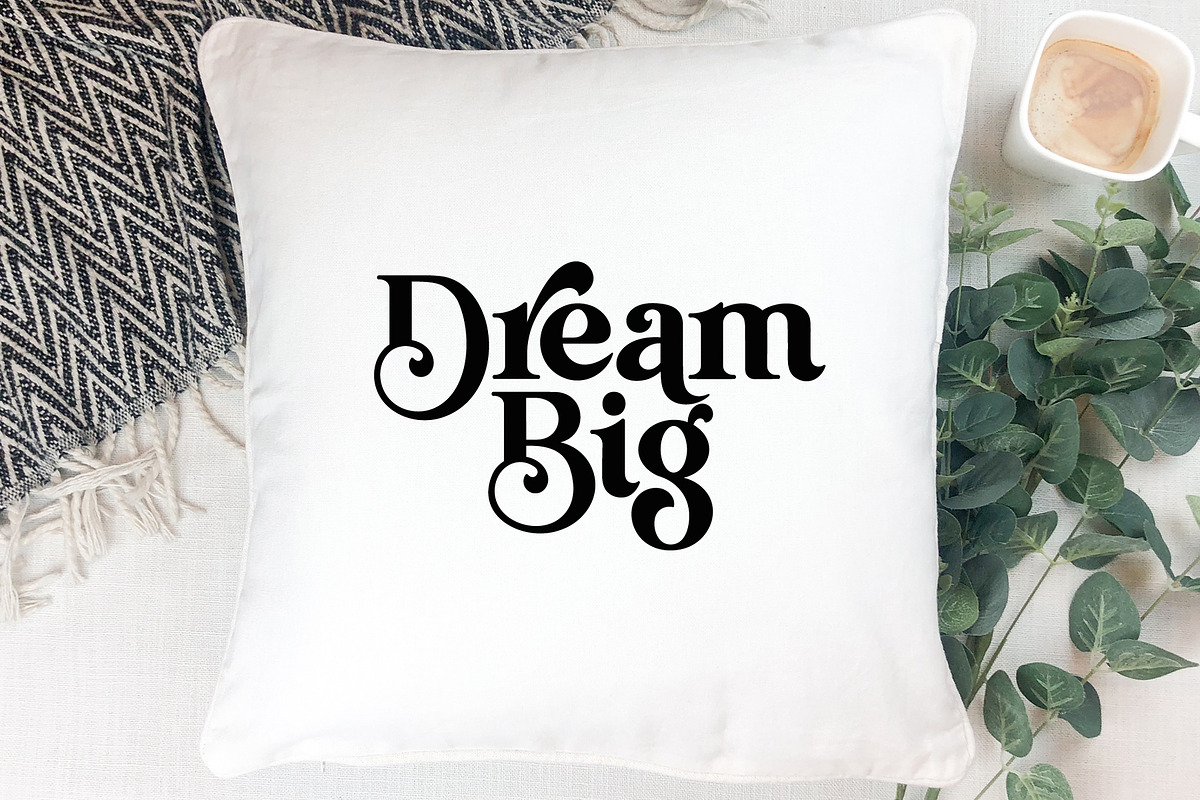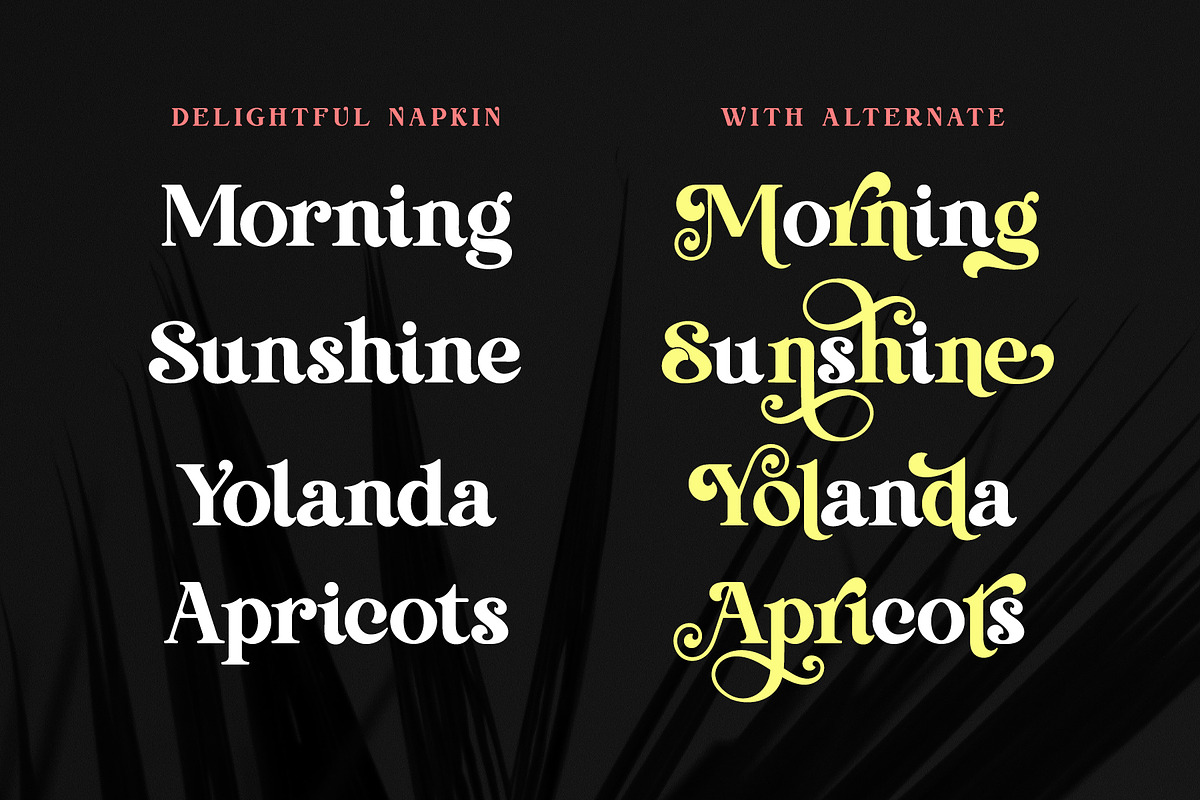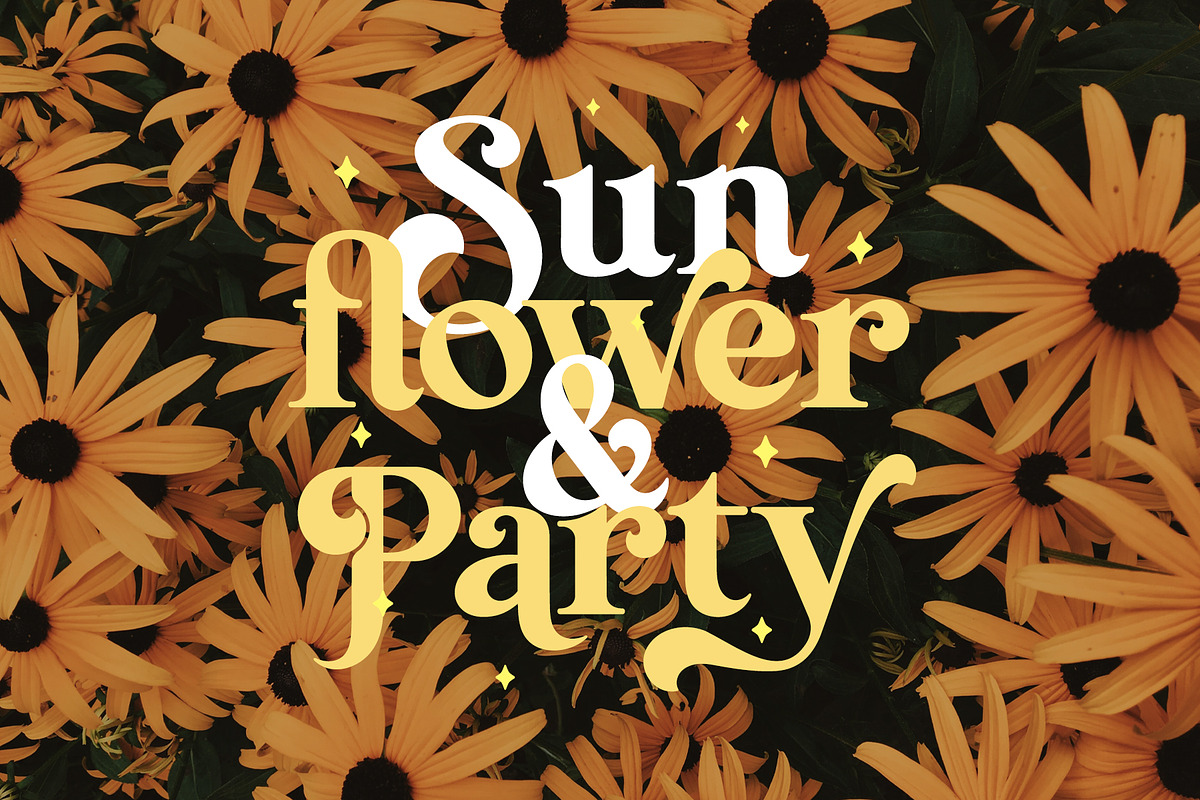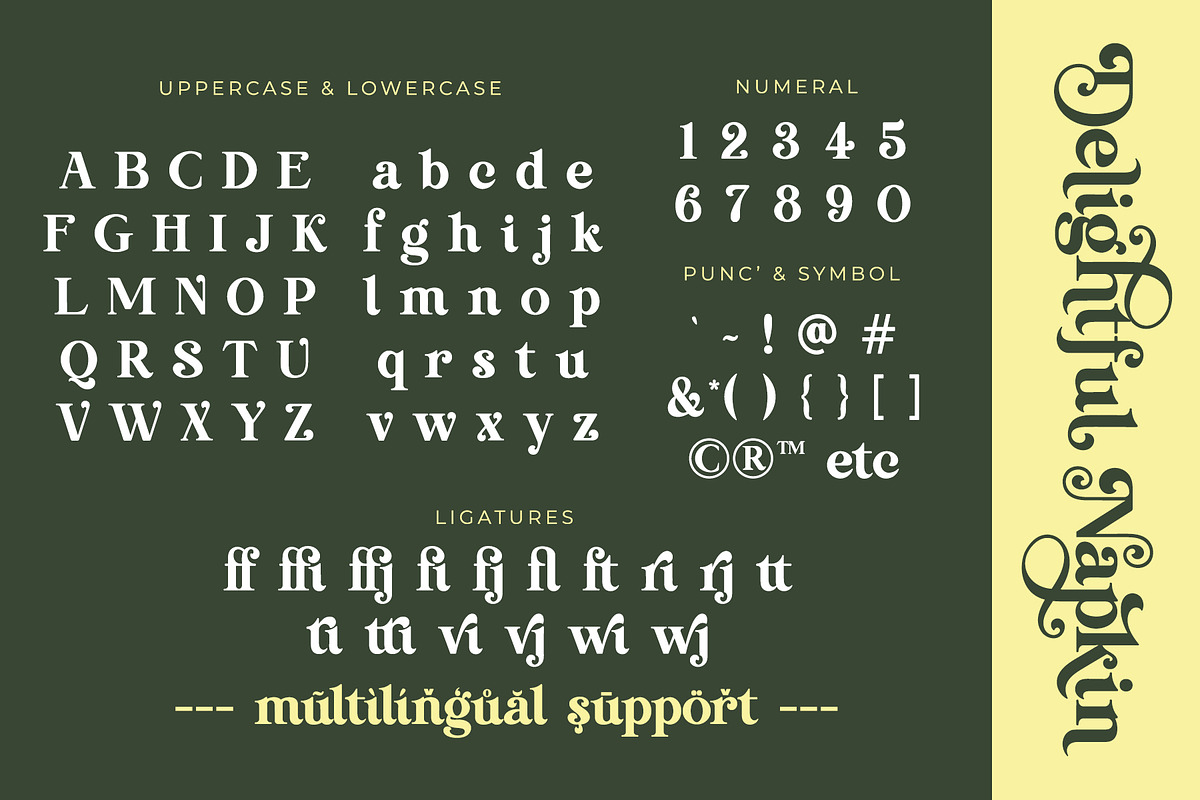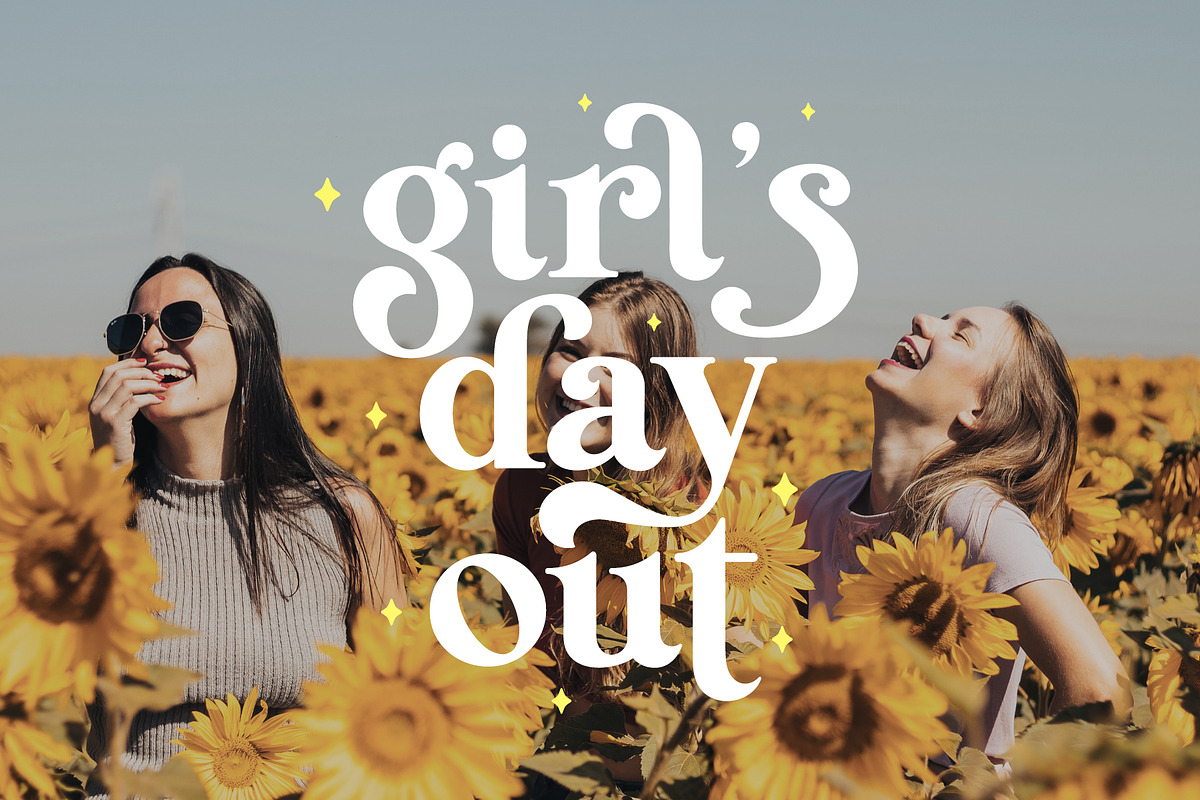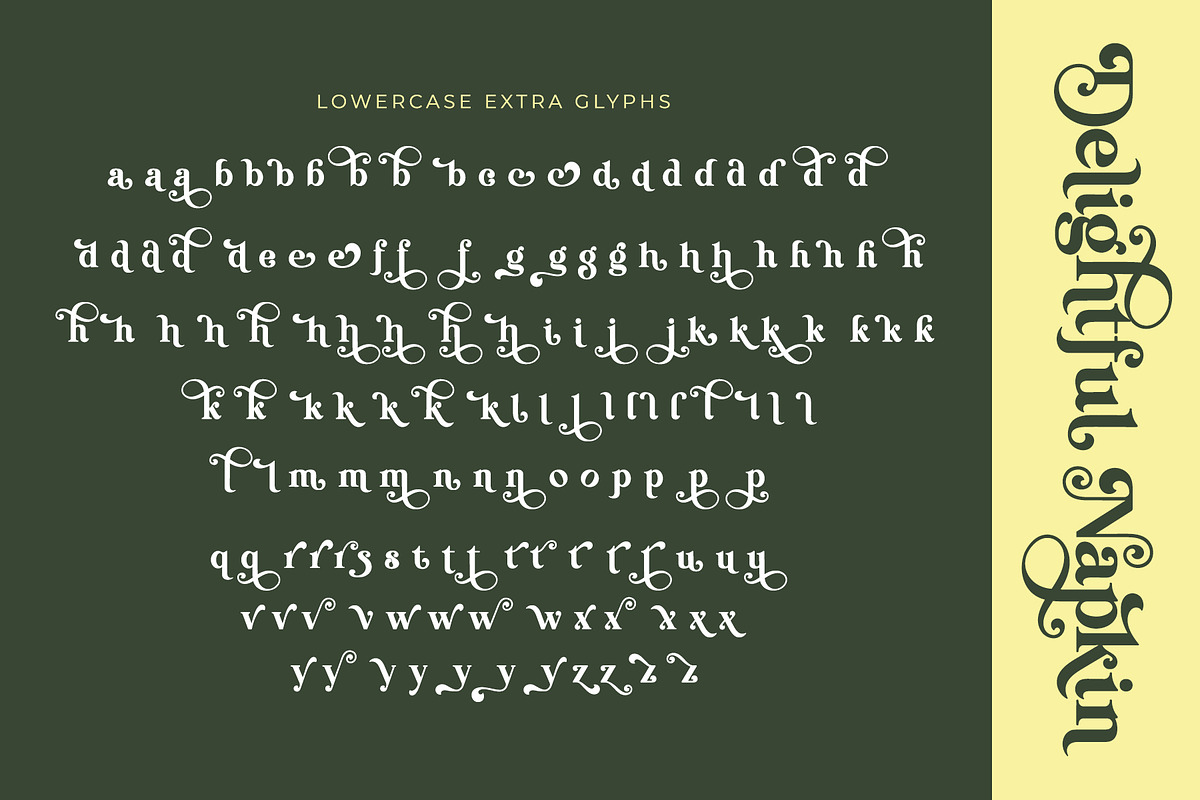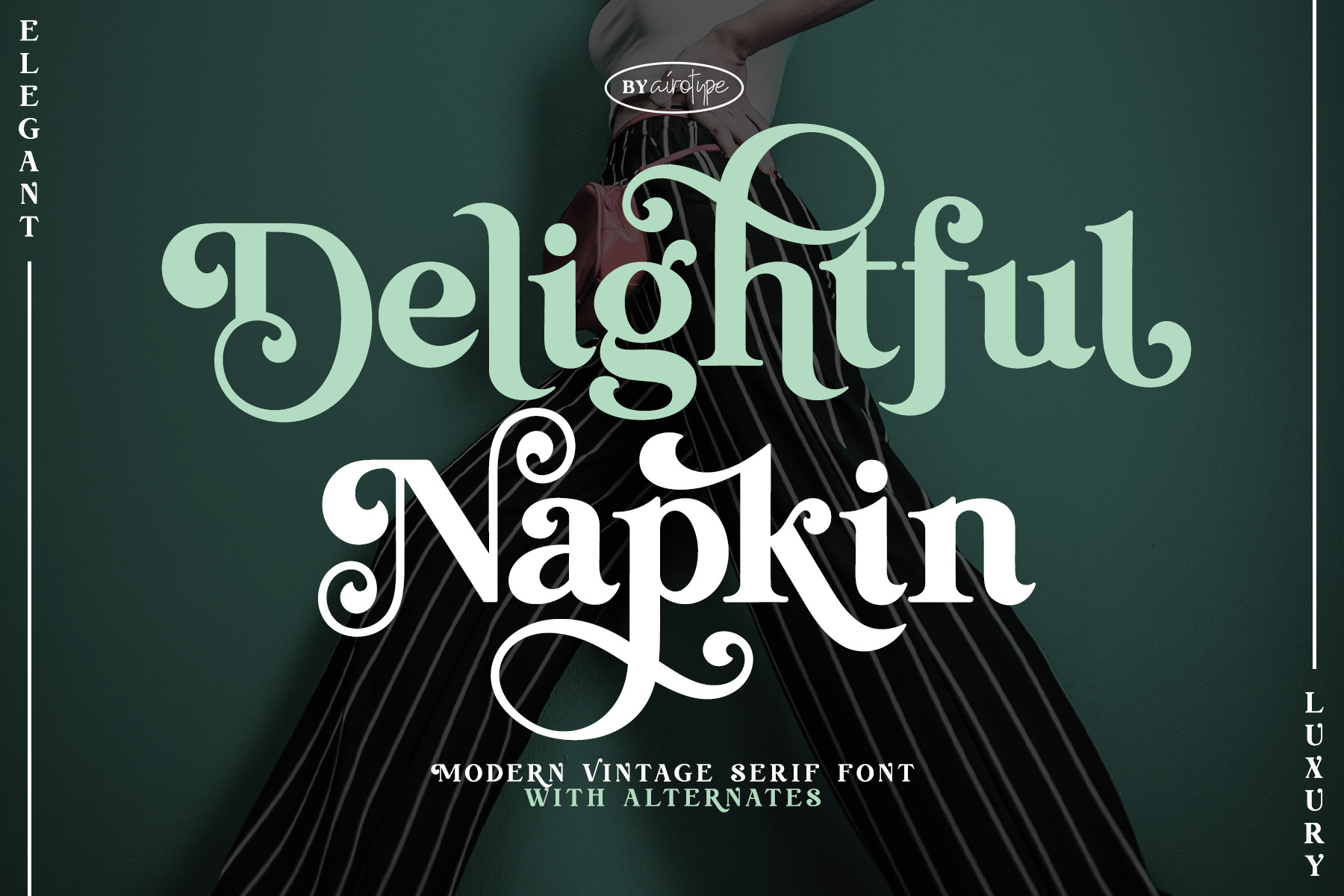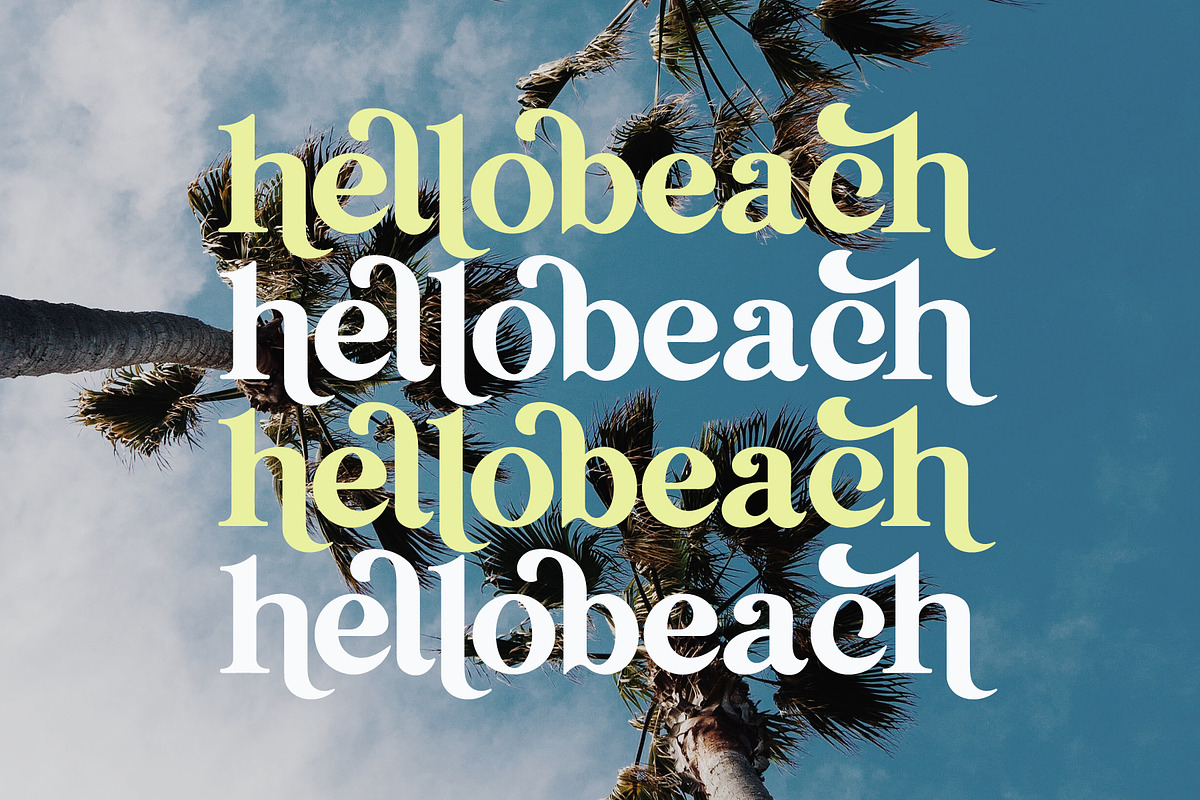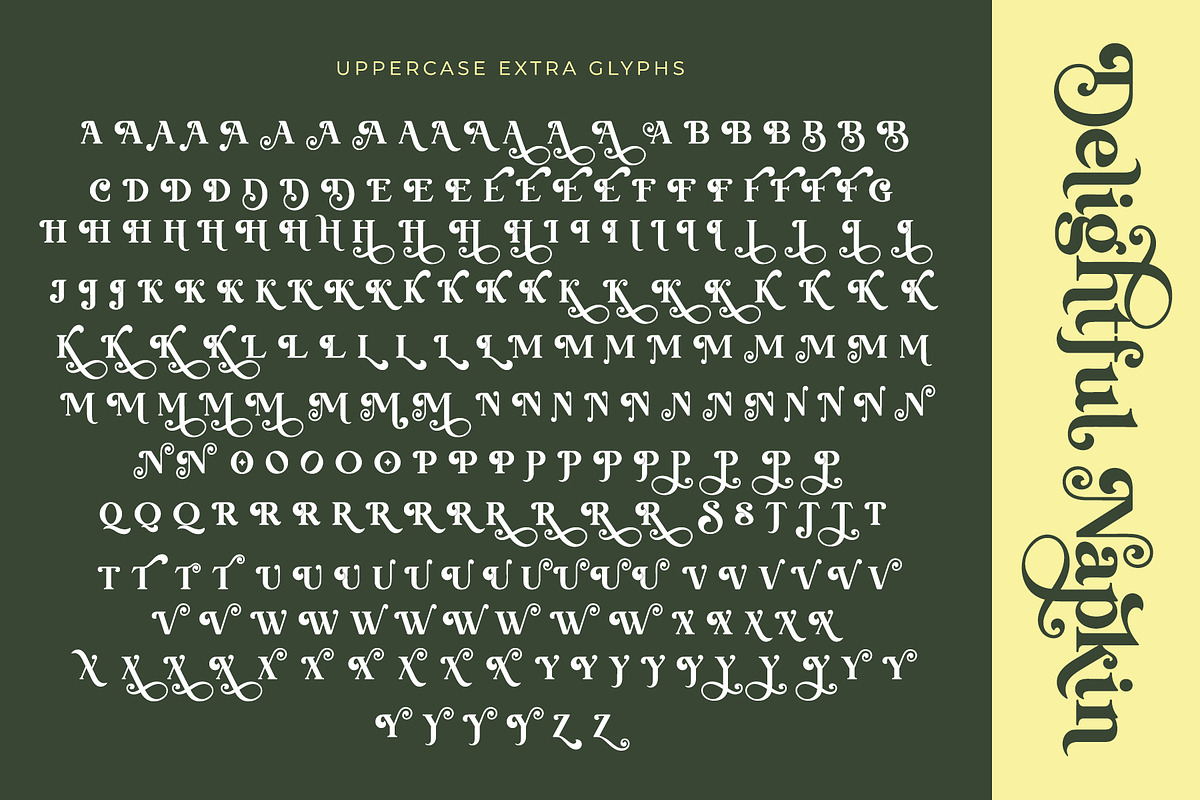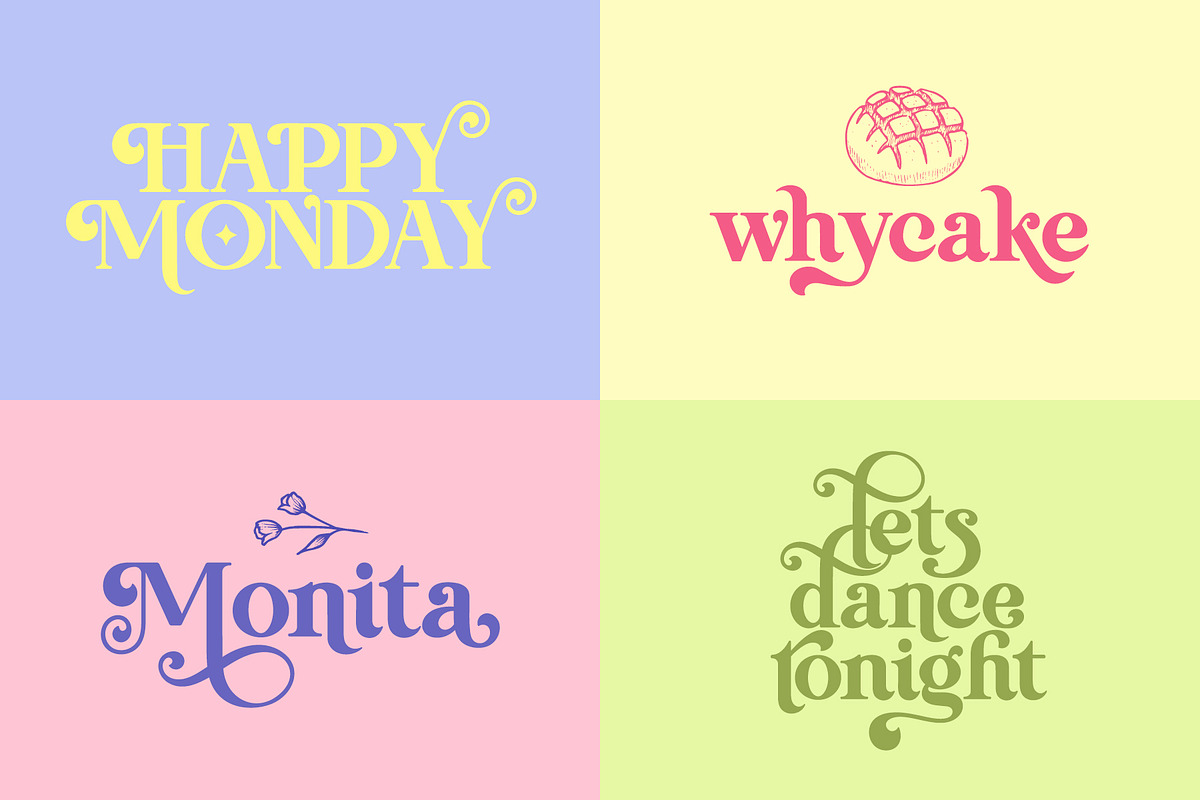
Delightful Napkin Modern Serif Font
Delightful Napkin is modern serif font with fancy and elegant vibes. This font has modern and vintage vibes in the same time.
- Uppercase and Lowercase (include PUA-Encoded extra glyphs)
- Most Multilingual Accent